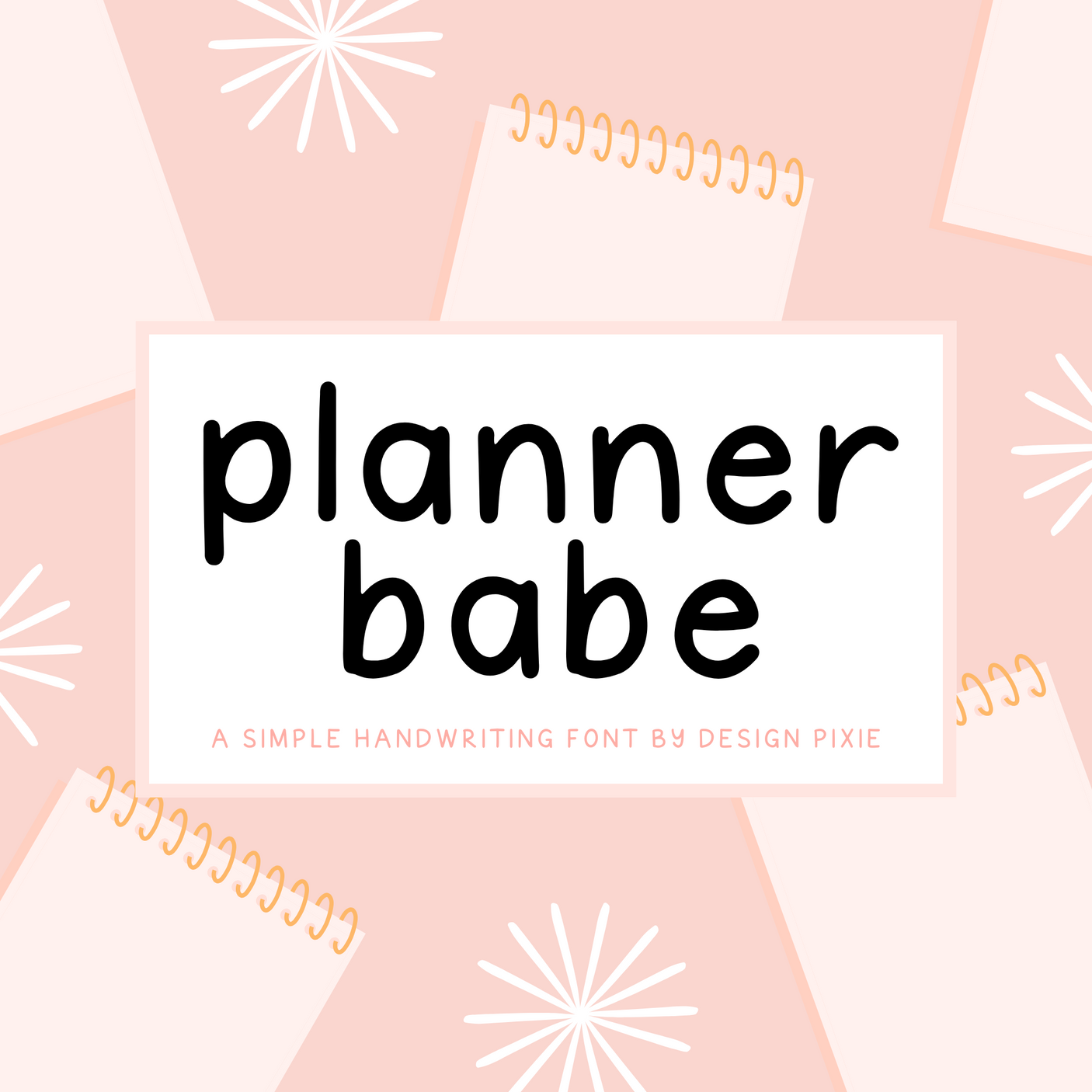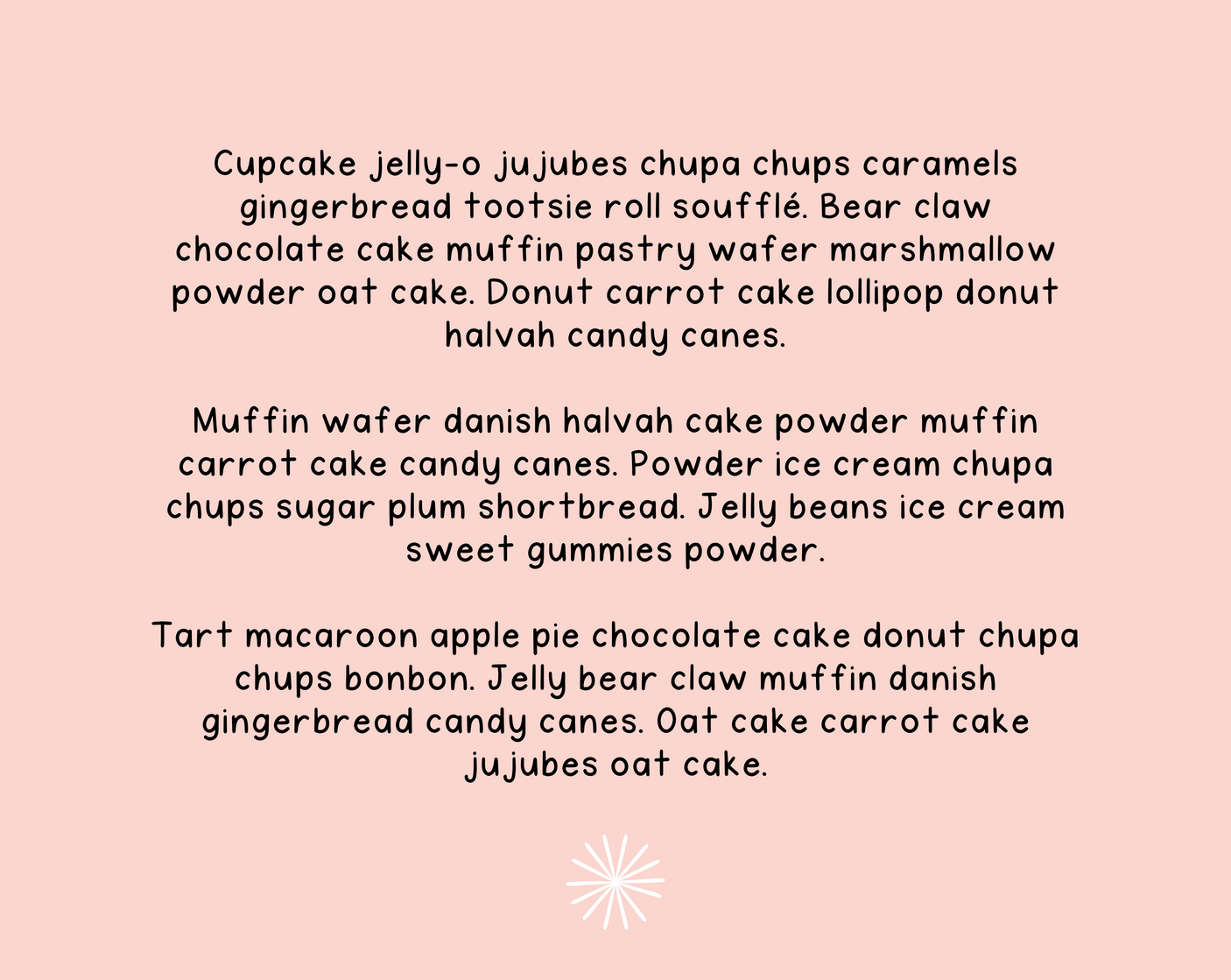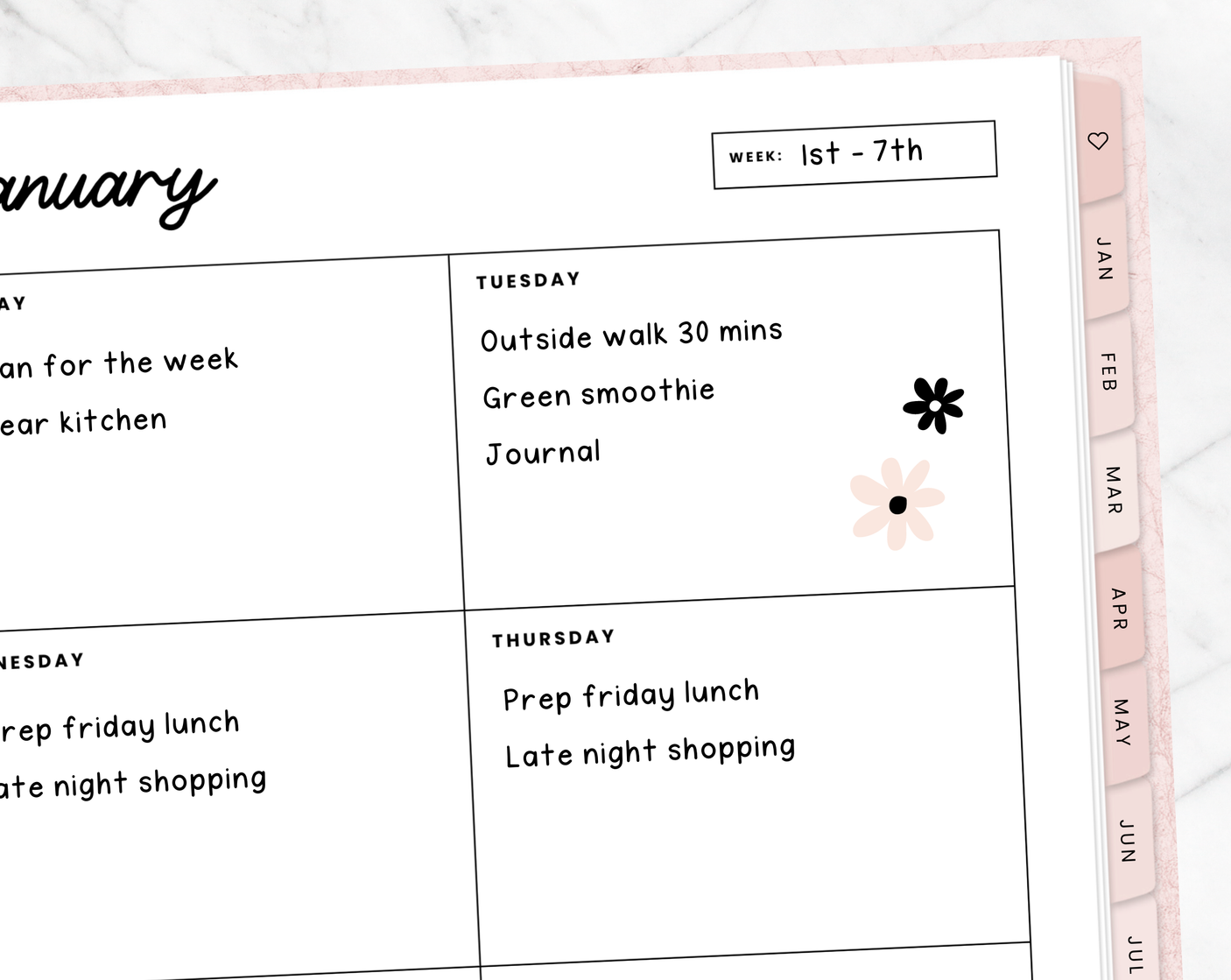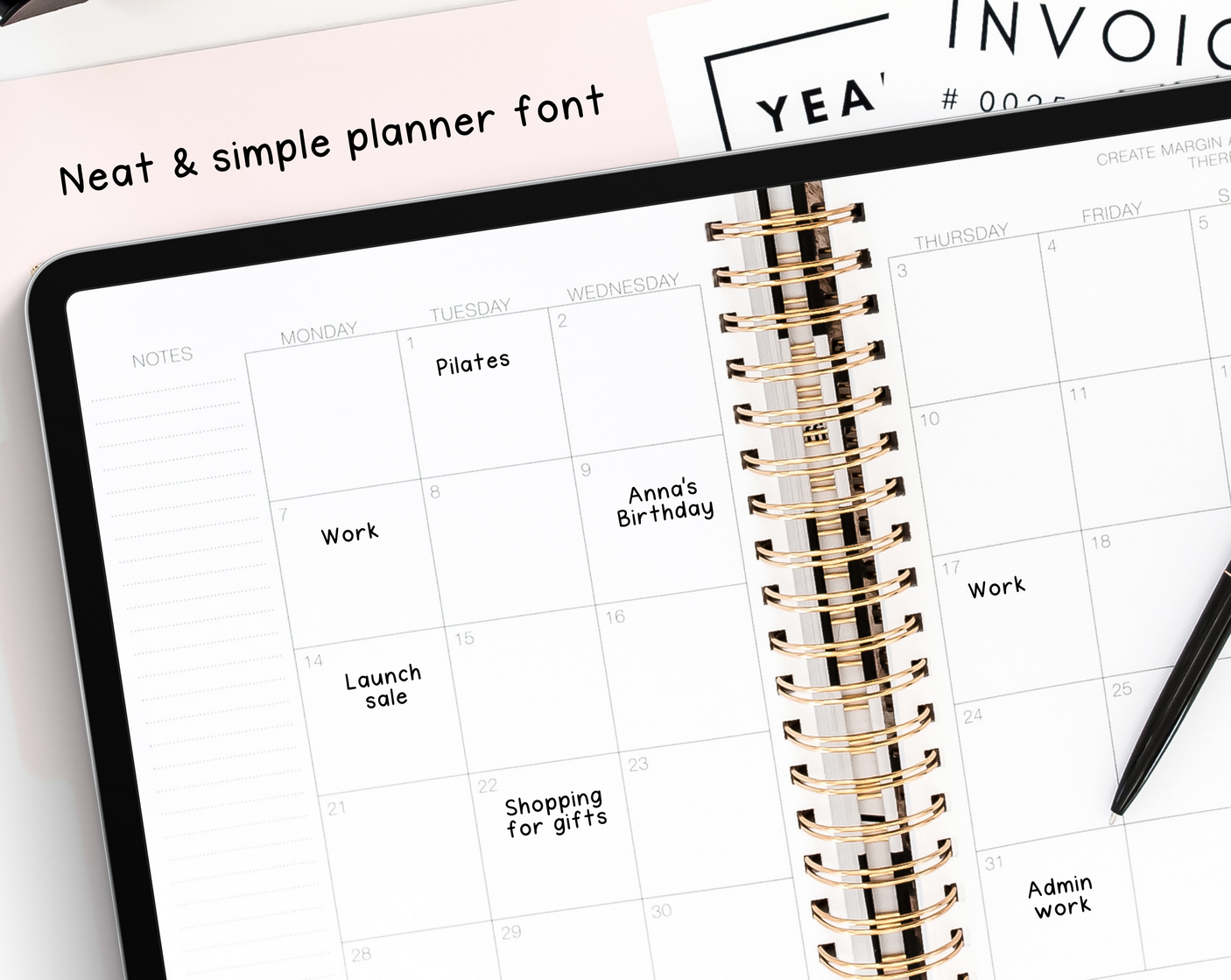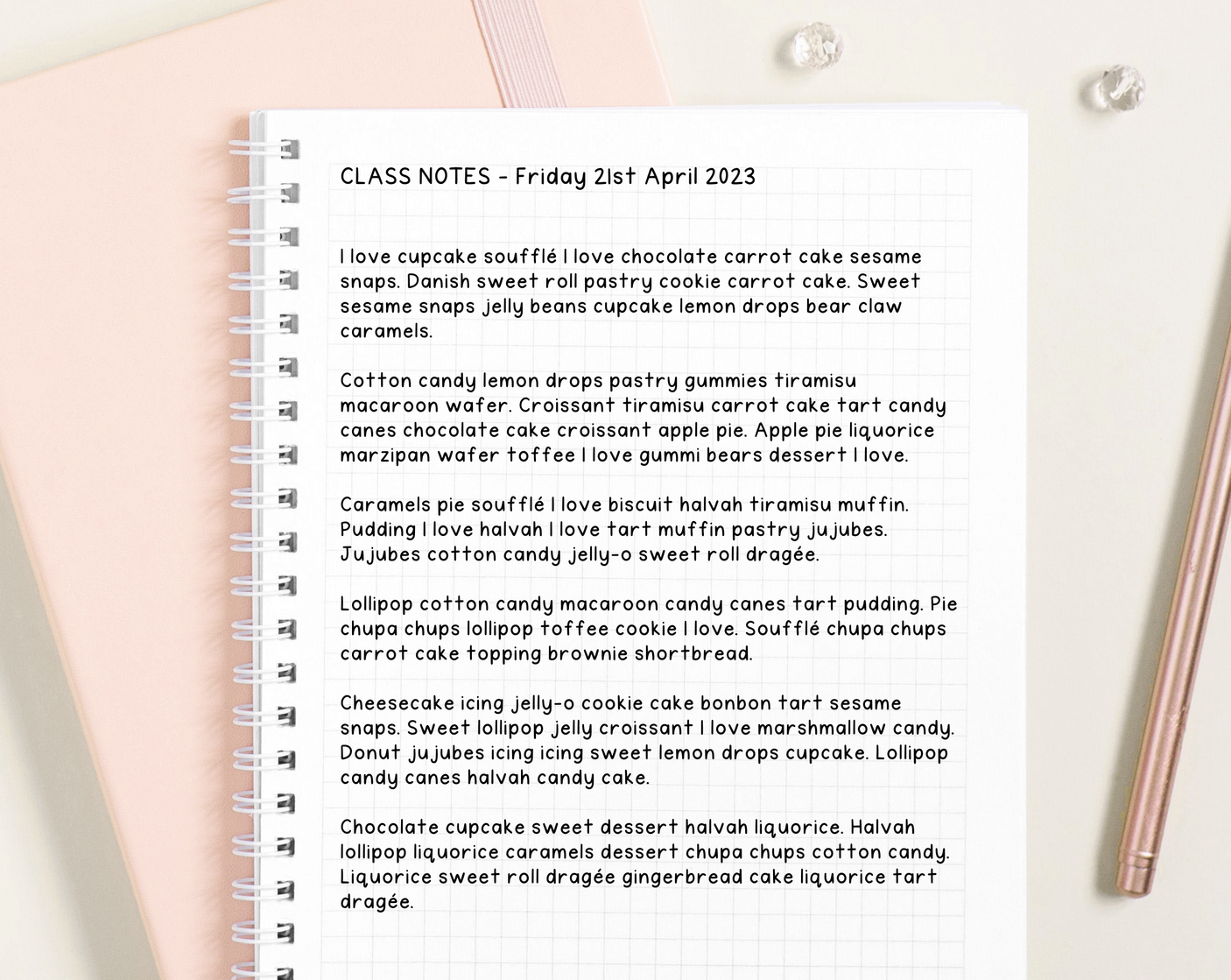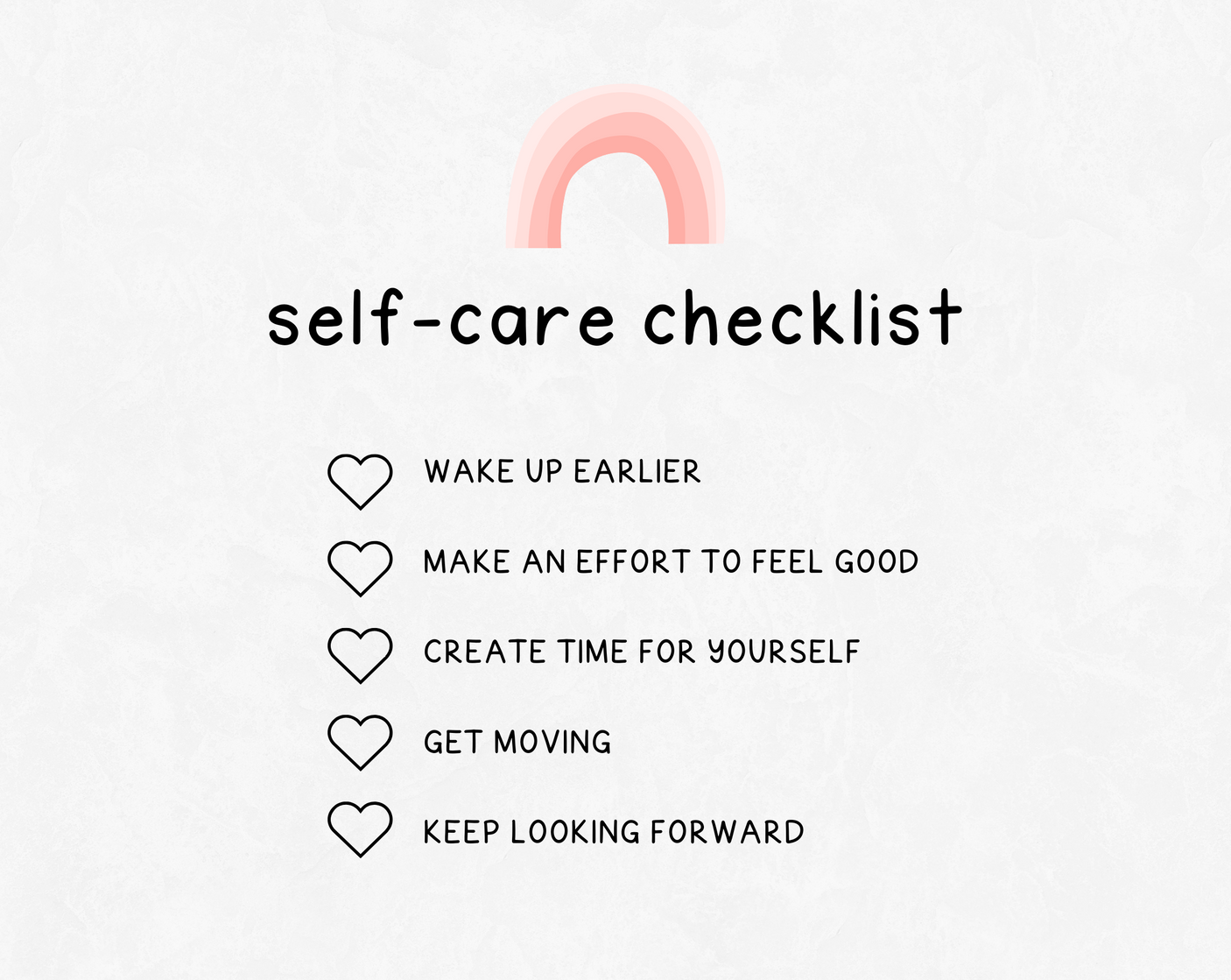
Planner Babe Font
Digital planner font for Goodnotes called Planner Babe. This font can be used on your iPad and desktop and in programs such as Cricut, Procreate, Photoshop, Canva and more. It’s a neat and simple handwritten font for digital planning, note-taking, logos, crafty work and digital projects.